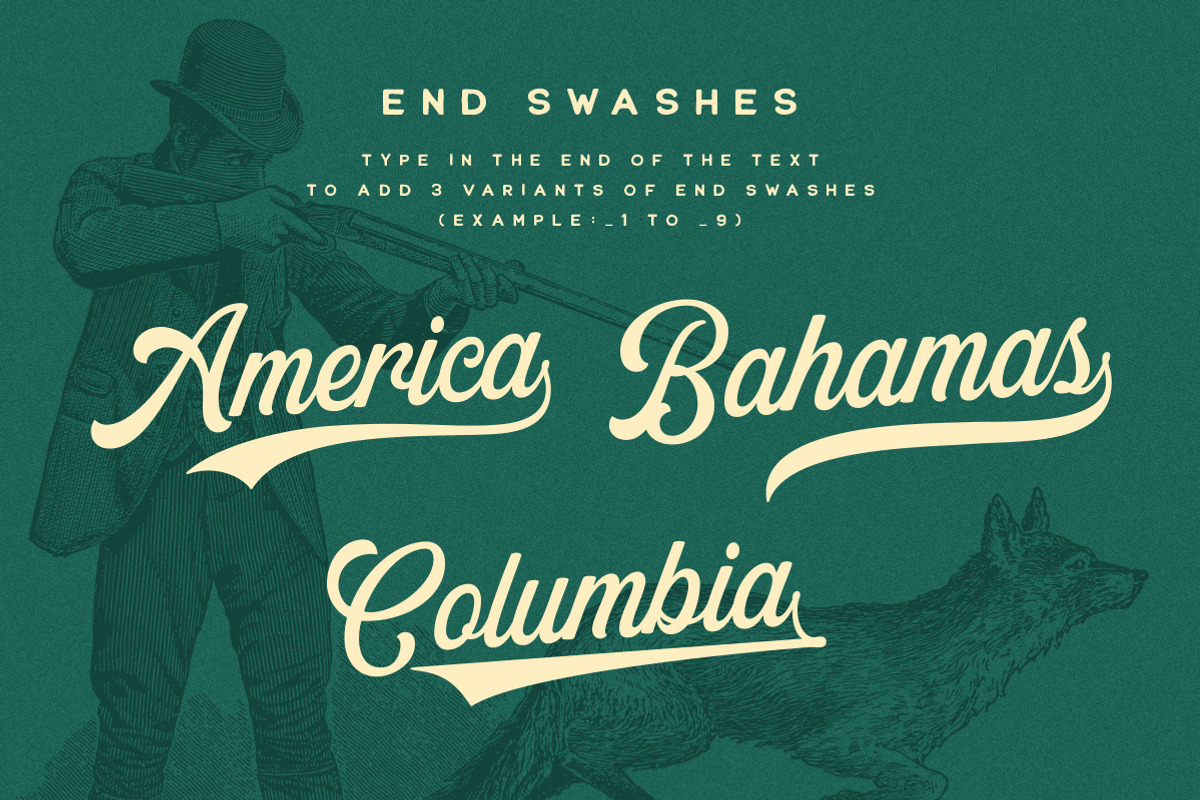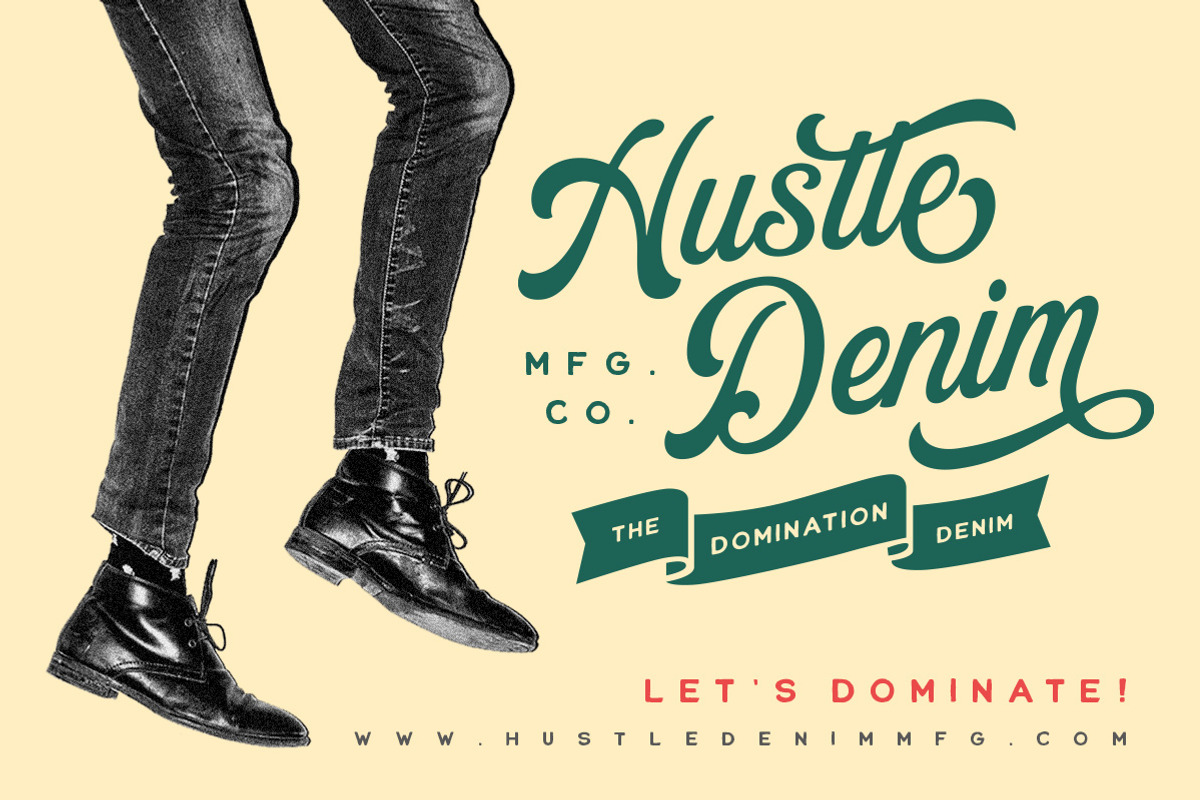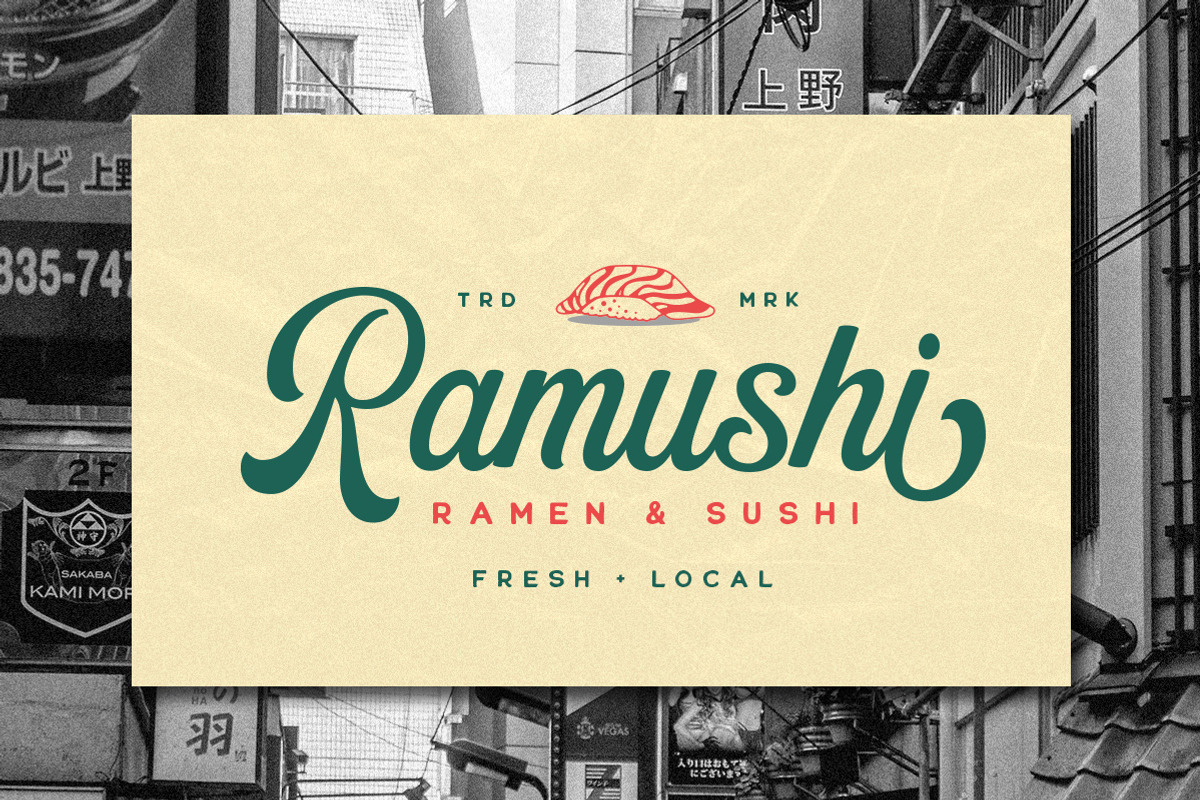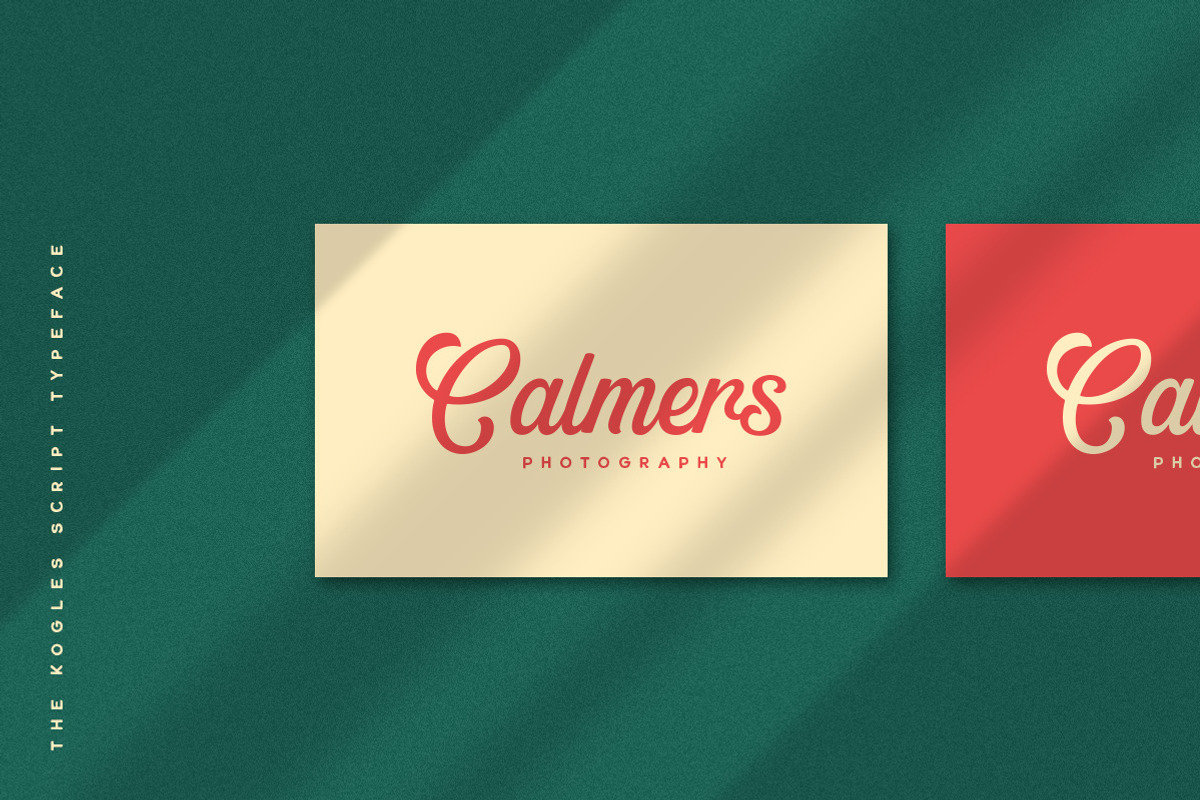
The Kogles Script Typeface
Please welcome our newest script typeface, The Kogles, a nice script typeface with retro feel. This font perfectly made to be applied especially in logo, and the other various formal forms such as invitations, labels, logos, magazines, books, greeting / wedding cards, packaging, fashion, make up, stationery, novels, labels or any type of advertising purpose.
uppercase & lowercase
numbers and punctuation
- uppercase & lowercase
- numbers and punctuation
- multilingual
- ligatures
- alternates
- swashes
Why The Kogles Script Typeface is worth a look
The Kogles Script Typeface by Letterhend Studio fits naturally into Branding, posters, packaging, typography.